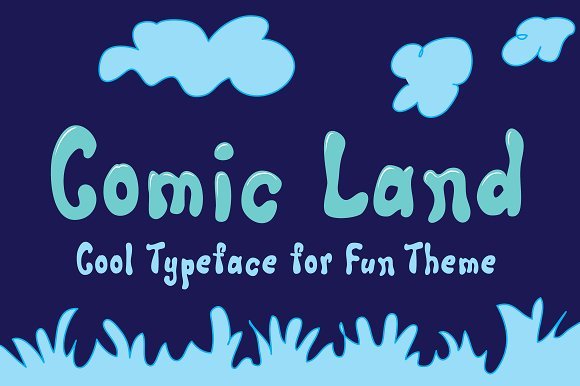
Discover the Perfect Blend of Whimsy and Typography: Comic Land Font
Do you ever get that sudden spark of creativity in the middle of the night, where ideas start pouring in and you can’t wait to bring them to life? For designers, those moments are what make all the late nights and early mornings worth it. For one designer, Darwinoo, that moment led to the creation of the Comic Land Font – a typeface that perfectly captures the essence of playfulness and imagination.
Comic Land Font is designed to add a touch of whimsy to any project, whether it’s a children’s book, a graphic novel, or even a logo design. Its unique blend of rounded edges and bold lines makes it an instant favorite among designers looking to add some personality to their work. And with its versatility, Comic Land Font is a valuable addition to any designer’s toolkit.
Key Features of Comic Land Font
- Unique Characteristics: The font features a playful, hand-drawn style with bold lines and rounded edges, giving it a distinctive comic book feel.
Comic Land Font Review
At first glance, Comic Land Font appears to be a playful and quirky addition to any design project. ✨ The font’s rounded edges and irregular shapes evoke a sense of nostalgia for classic comic books and cartoons. ✨ Its bold lines and contrasting weights add a level of visual interest, making it suitable for use in illustrations, graphic novels, and even children’s book covers.
However, there are a few limitations that might make it less desirable for certain projects. ⚠️ The font’s irregularities can sometimes make it difficult to read, especially in long blocks of text. ⚠️ Additionally, its playful nature might make it less suitable for formal or professional designs where a more subdued tone is required.
Here are some key points to consider when deciding whether to use Comic Land Font:
- Best suited for: illustrations, graphic novels, children’s book covers, and other playful designs
- Not recommended for: formal or professional designs, long blocks of text, or situations where readability is a top priority
- Unique and quirky design that adds visual interest to a project
- May require additional design elements to balance out the font’s irregularities
Overall, Comic Land Font is a fun and creative choice for designers looking to add a touch of whimsy to their projects. While it may not be the best choice for every design, it can be a valuable addition to the right project.
Comic Land Font is perfect for creating cartoon-style graphics, comic books, and children’s educational materials. To get the most out of it, use it in conjunction with bold, colorful graphics and illustrations. Experiment with different font sizes and colors to create a visually appealing design.